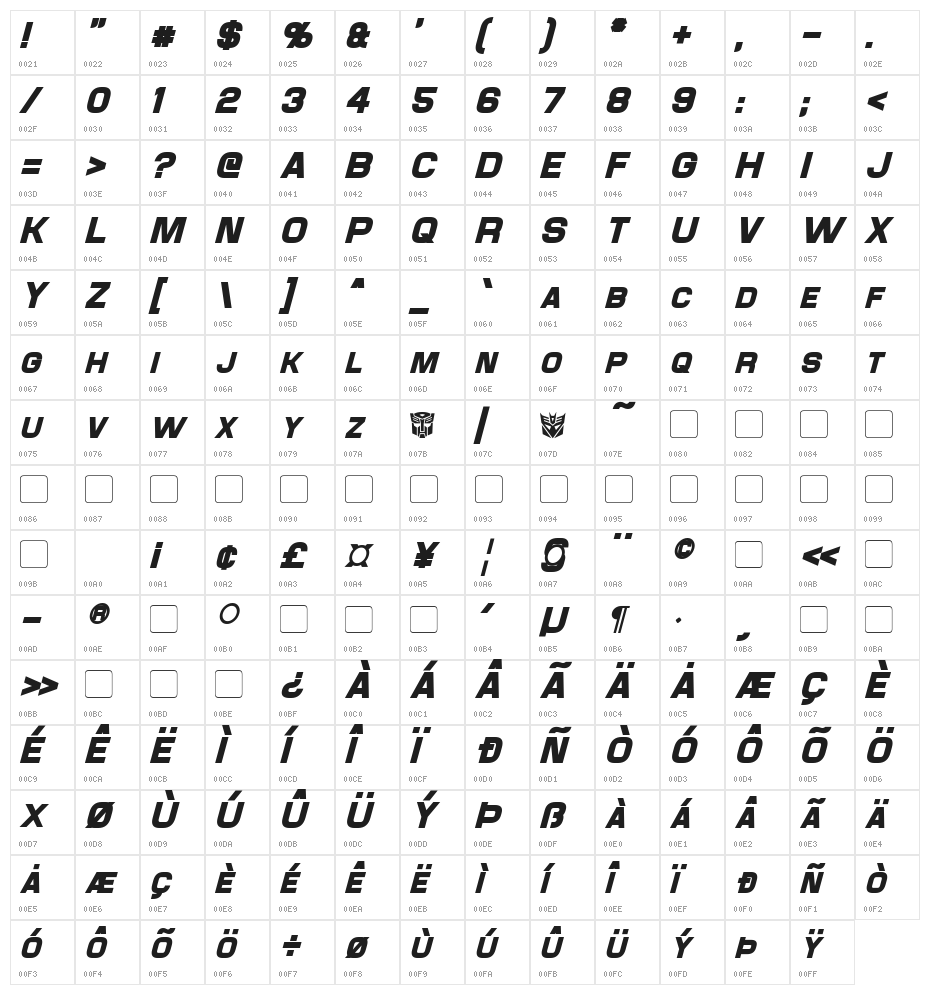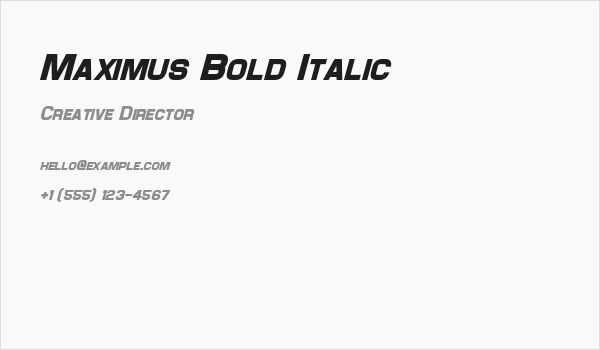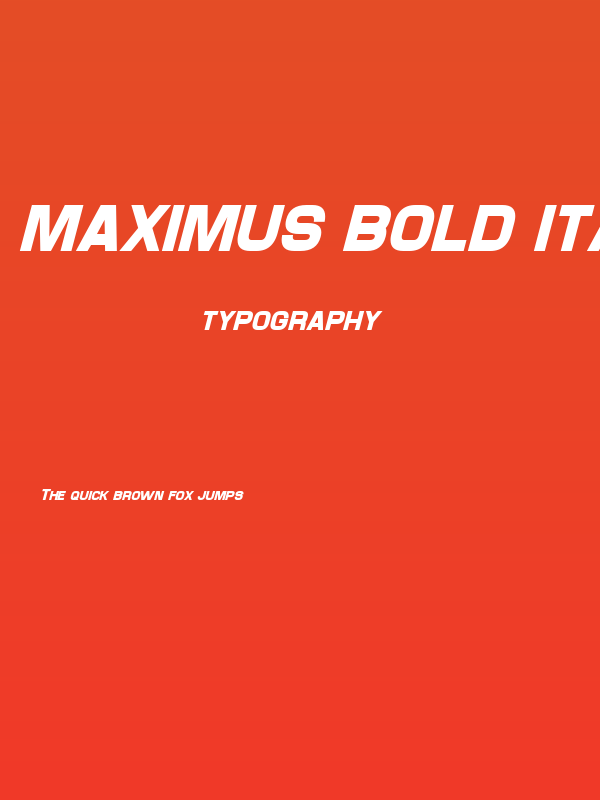
Maximus Bold Italic Font
Maximus Bold Italic Description
This font features a bold and italicized style, characterized by its strong, impactful presence. The letters are slanted, giving a dynamic and forward-moving appearance. The strokes are thick and consistent, providing a sense of stability and confidence. The uppercase and lowercase letters maintain a uniform width, while the numbers and special characters are designed to complement the overall aesthetic. The font's boldness and italic nature make it suitable for attention-grabbing headlines and titles.
| Proposed Projects | Ideal for branding, advertising, sports team logos, and dynamic headlines. |